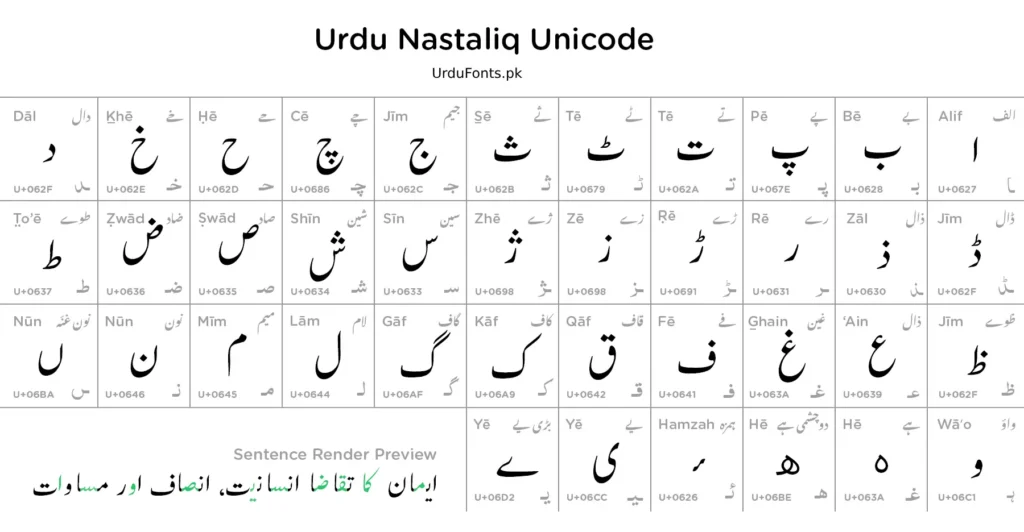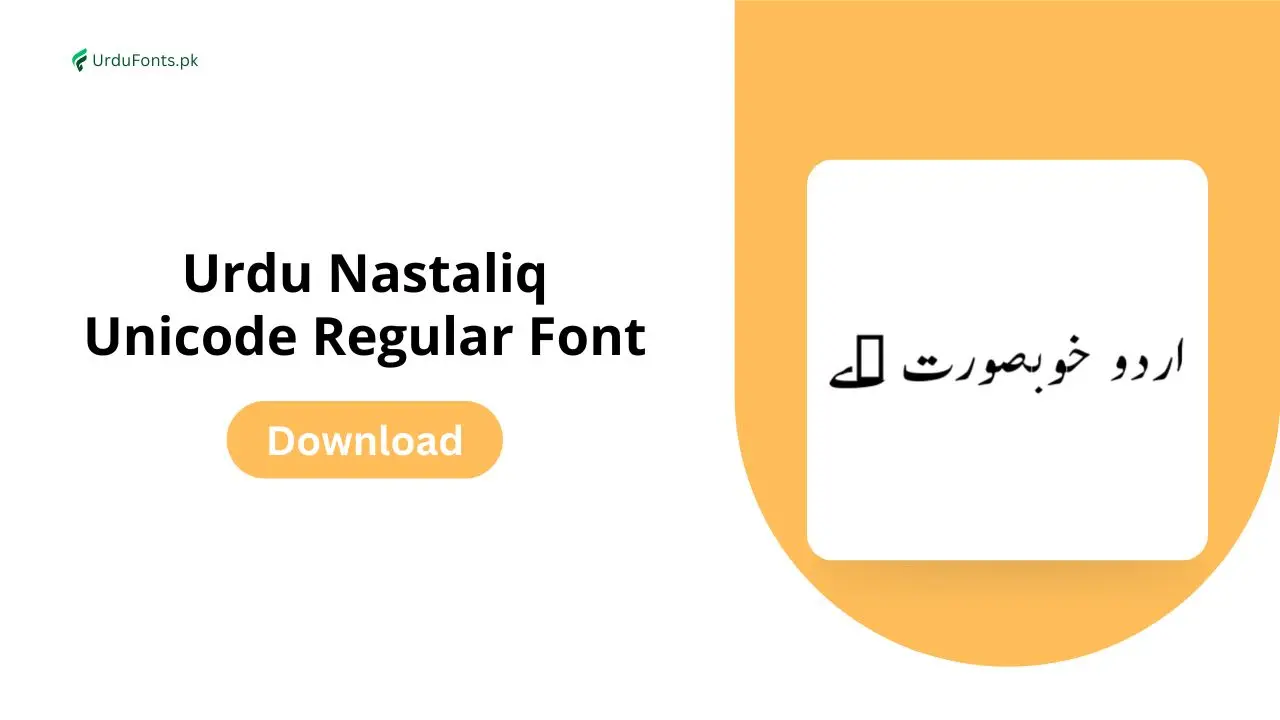
Urdu Nastaliq Unicode Regular is a amazing font for those seeking to create authentic and beautiful Urdu text in the digital age. This article explores the font’s features, applications, and how you can download it for your projects.
What is Urdu Nastaliq Unicode Regular?
Urdu Nastaliq Unicode Regular is a digital typeface that faithfully reproduces the flowing, calligraphic style of traditional Nastaliq script. It combines classical aesthetics with modern Unicode compatibility, making it ideal for a wide range of digital and print applications.
Urdu Nastaliq Unicode Regular is designed to work seamlessly across various platforms and software. It’s Unicode compliance ensures proper text rendering and minimizes encoding issues, making it an excellent choice for cross-platform projects.
Whether you’re designing websites, creating digital publications, or preparing academic papers, Urdu Nastaliq Unicode Regular provides a professional and culturally appropriate solution for Urdu typography. Its attention to detail in replicating the nuances of handwritten Nastaliq script sets it apart, ensuring your Urdu text not only communicates effectively but also preserves the aesthetic integrity of the language.
Key Features
- Unicode-compliant for universal compatibility
- Smooth letterforms
- Excellent readability at various sizes
- Supports Urdu, Persian, and Arabic scripts